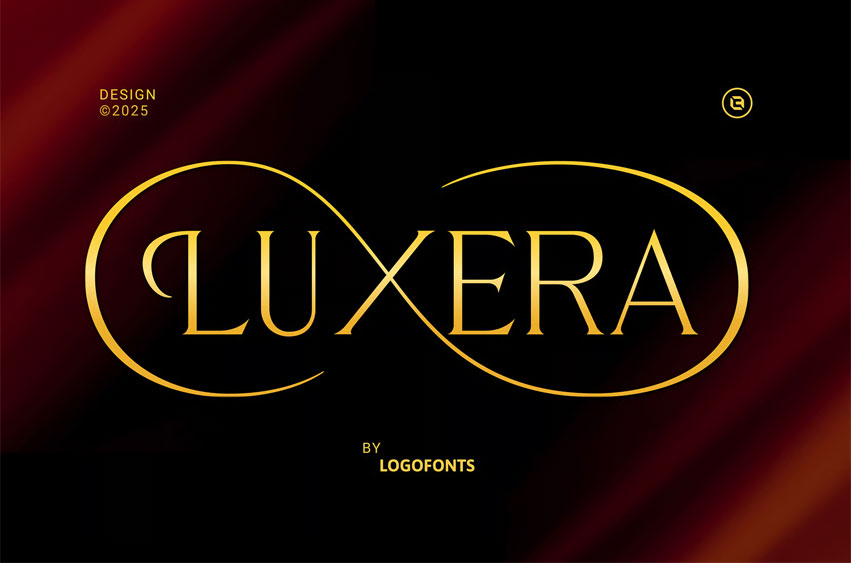
Luxera Font
Luxera Font is a minimal, clean, and elegant font designed for those who value sophistication and modern style. With its refined lines and balanced proportions, Luxera delivers a timeless look that works seamlessly across branding, editorial, and luxury design projects. Its simplicity enhances versatility, making it ideal for professional corporate identities while retaining a stylish and classy charm.
Perfect for modern logos, high-end packaging, and fashion-related visuals, Luxera combines a minimal structure with luxurious character. Whether used in bold branding concepts or subtle design details, this font embodies elegance, confidence, and a royal touch that elevates any creative project.
Designed for elegance, crafted for timeless branding.